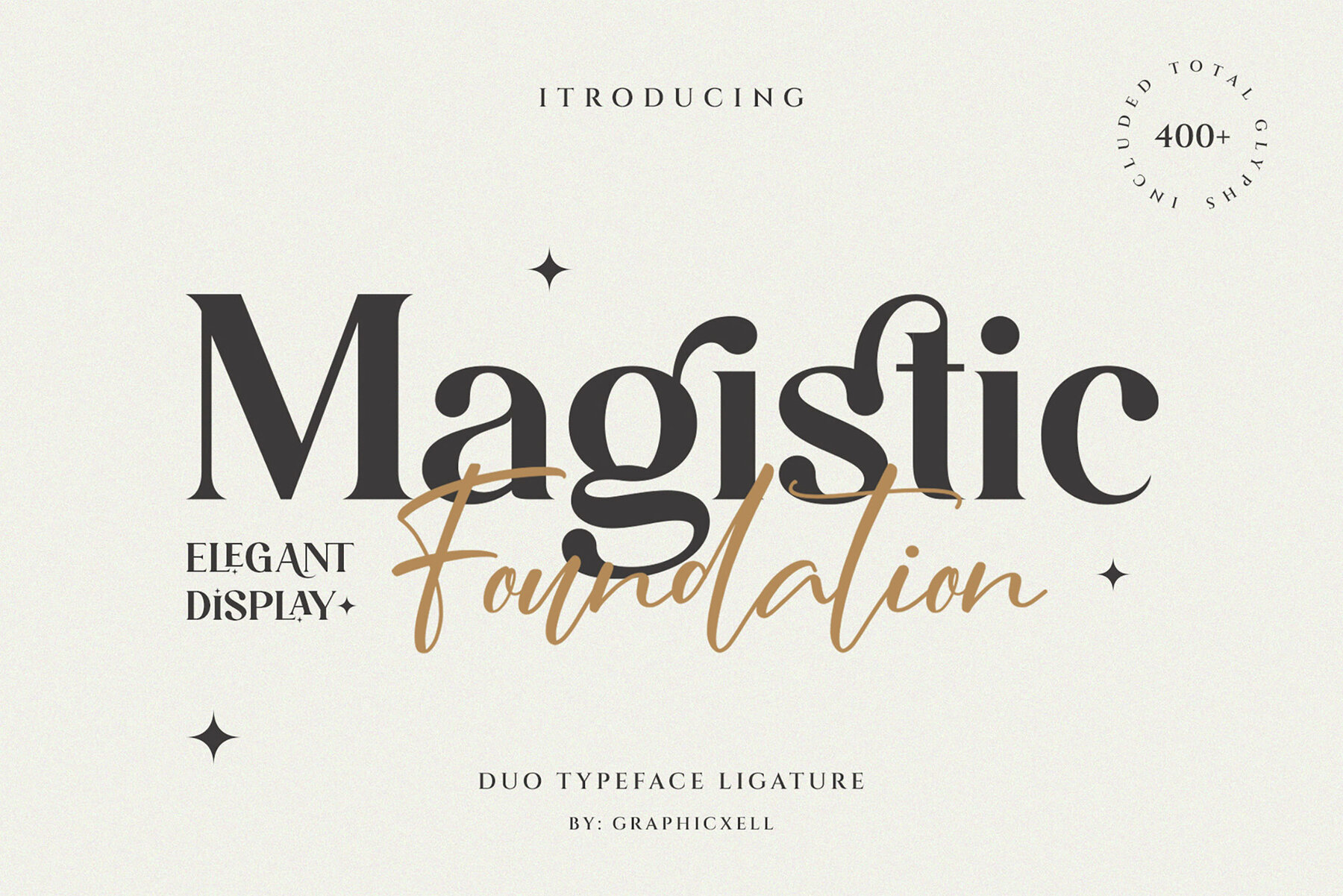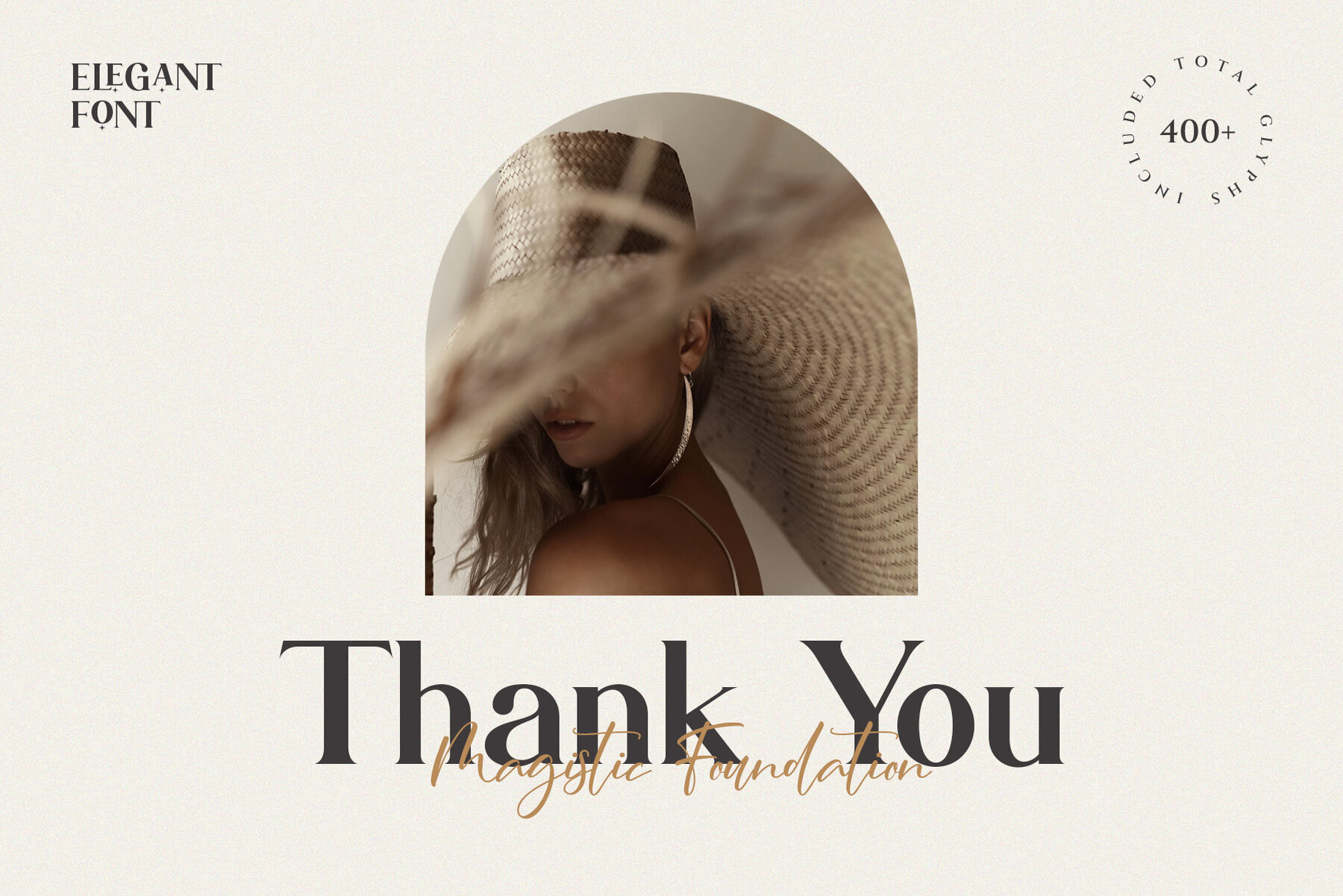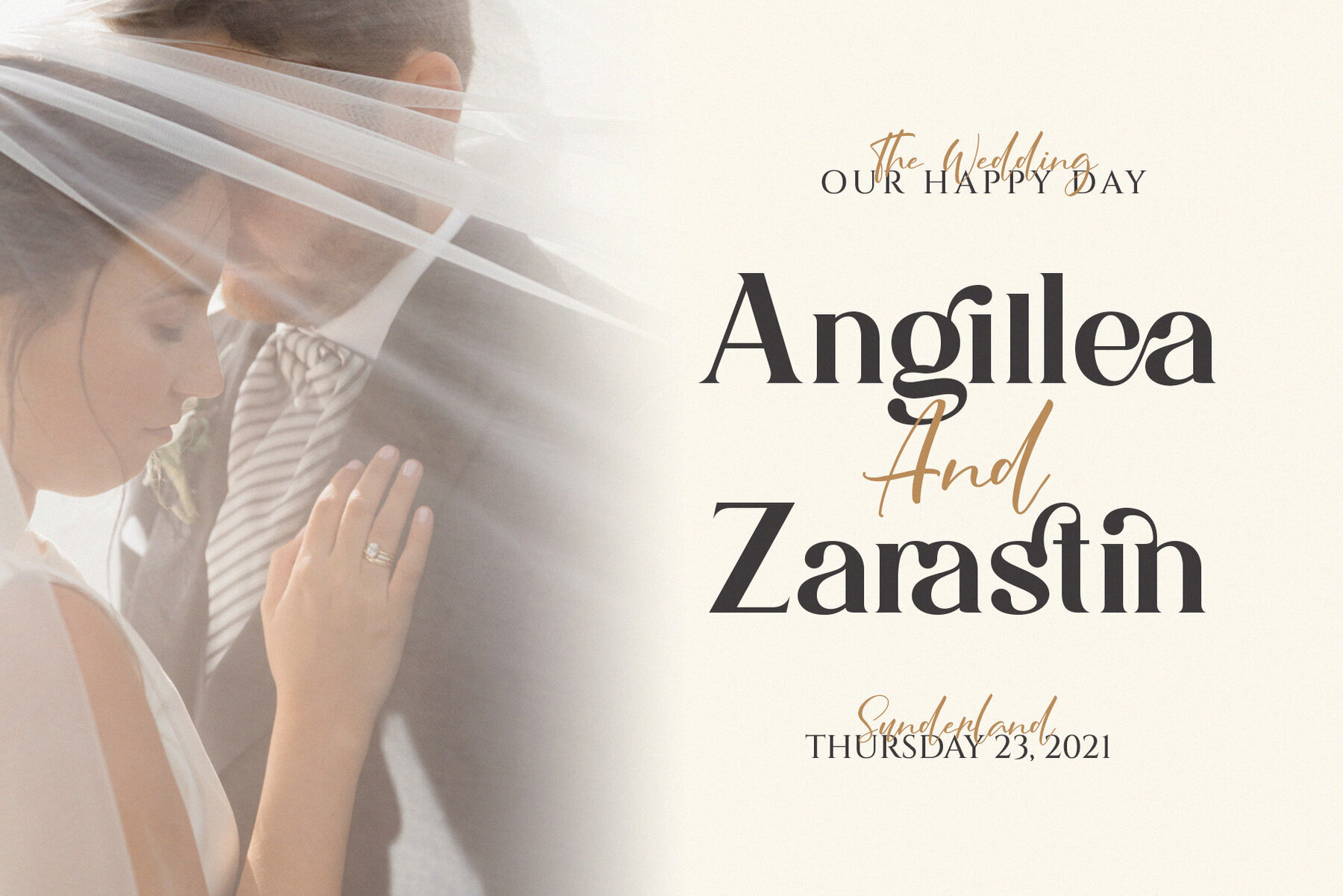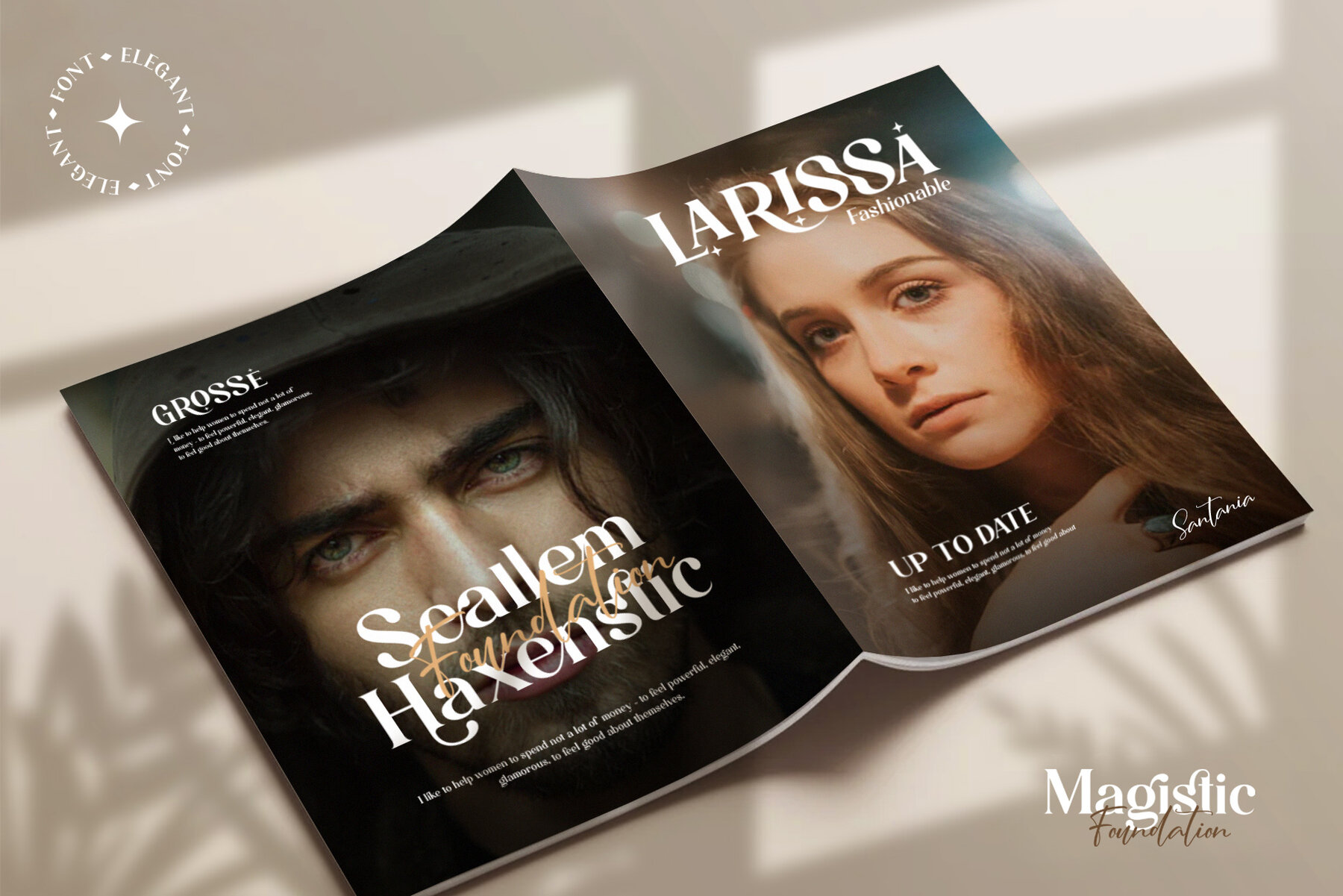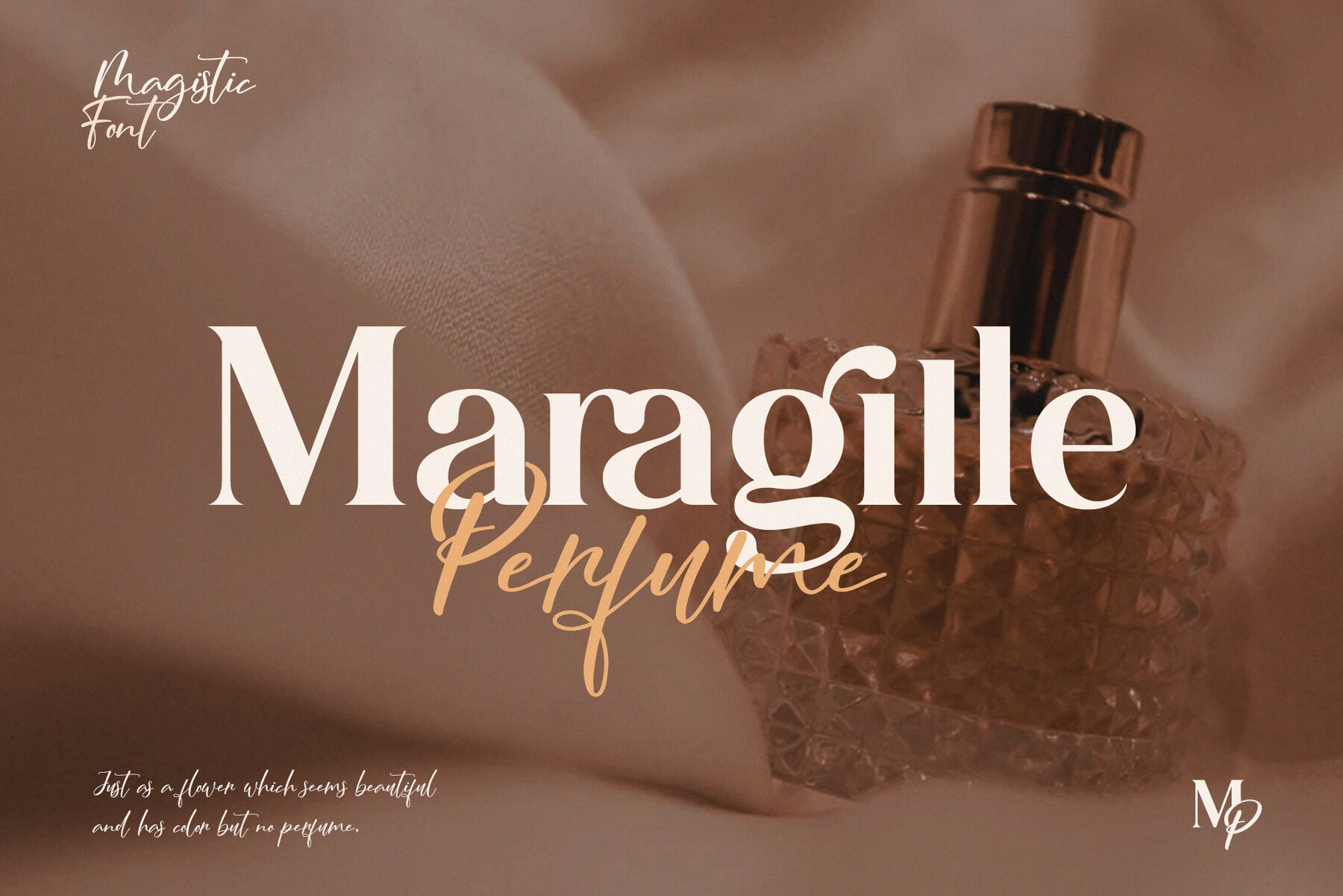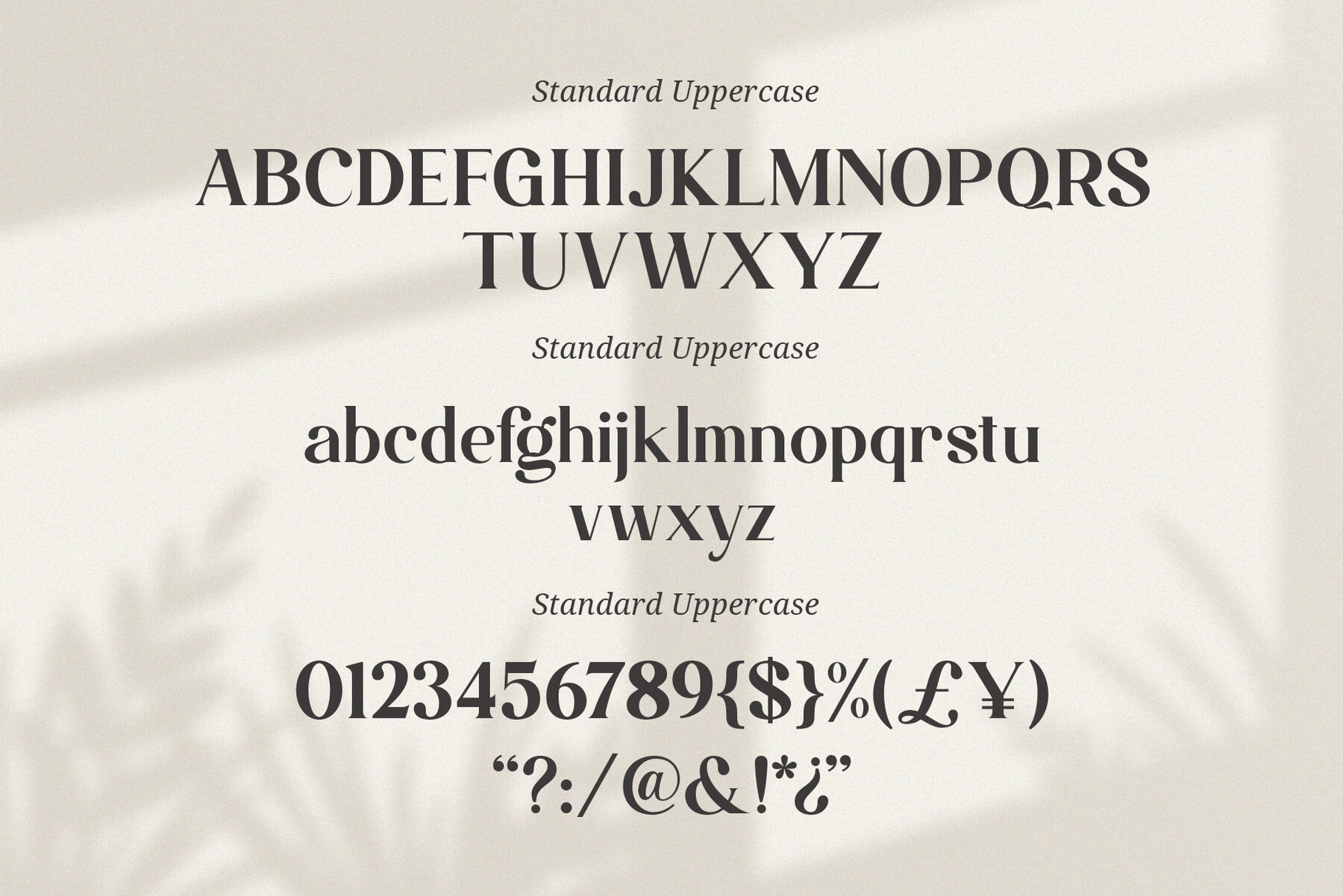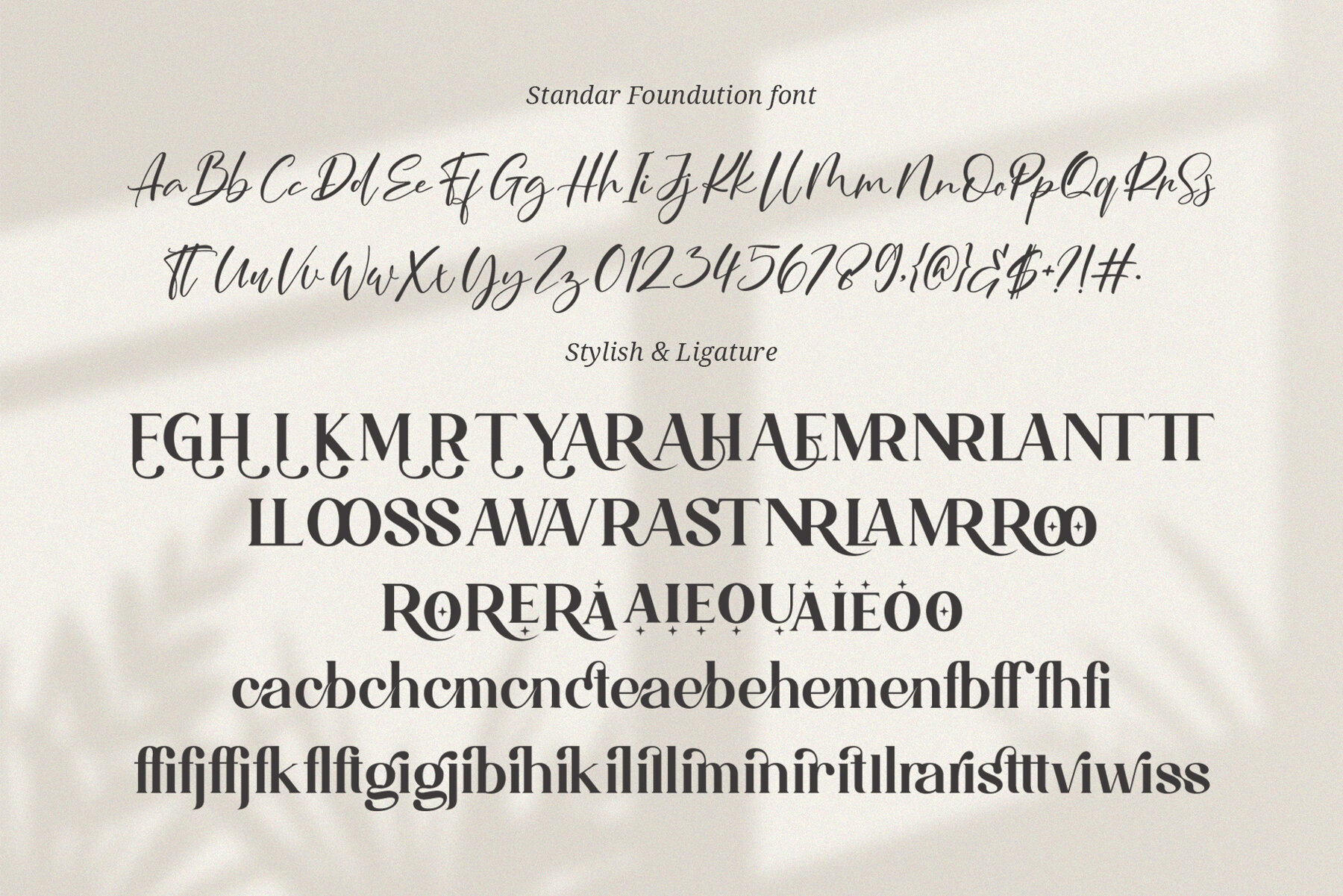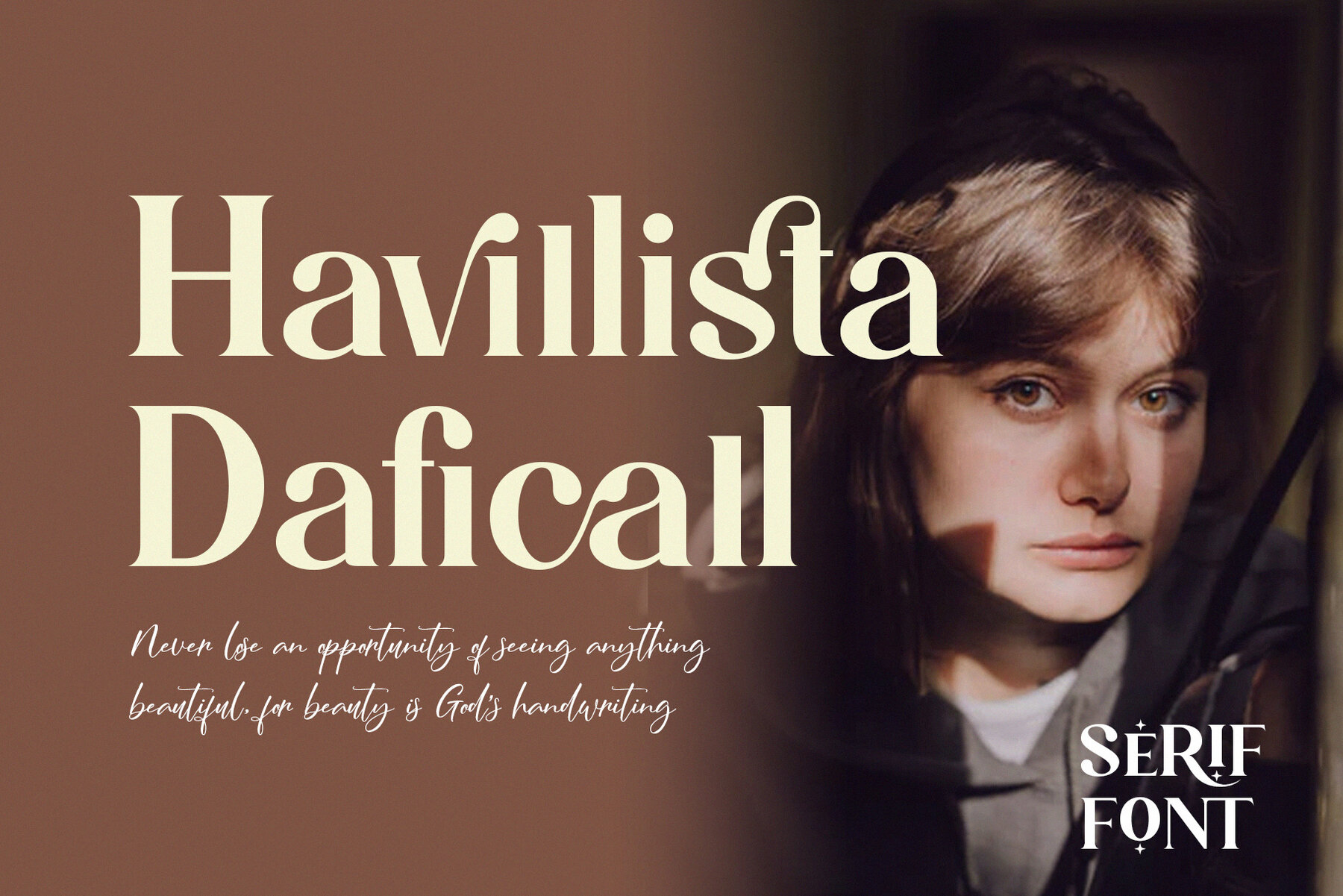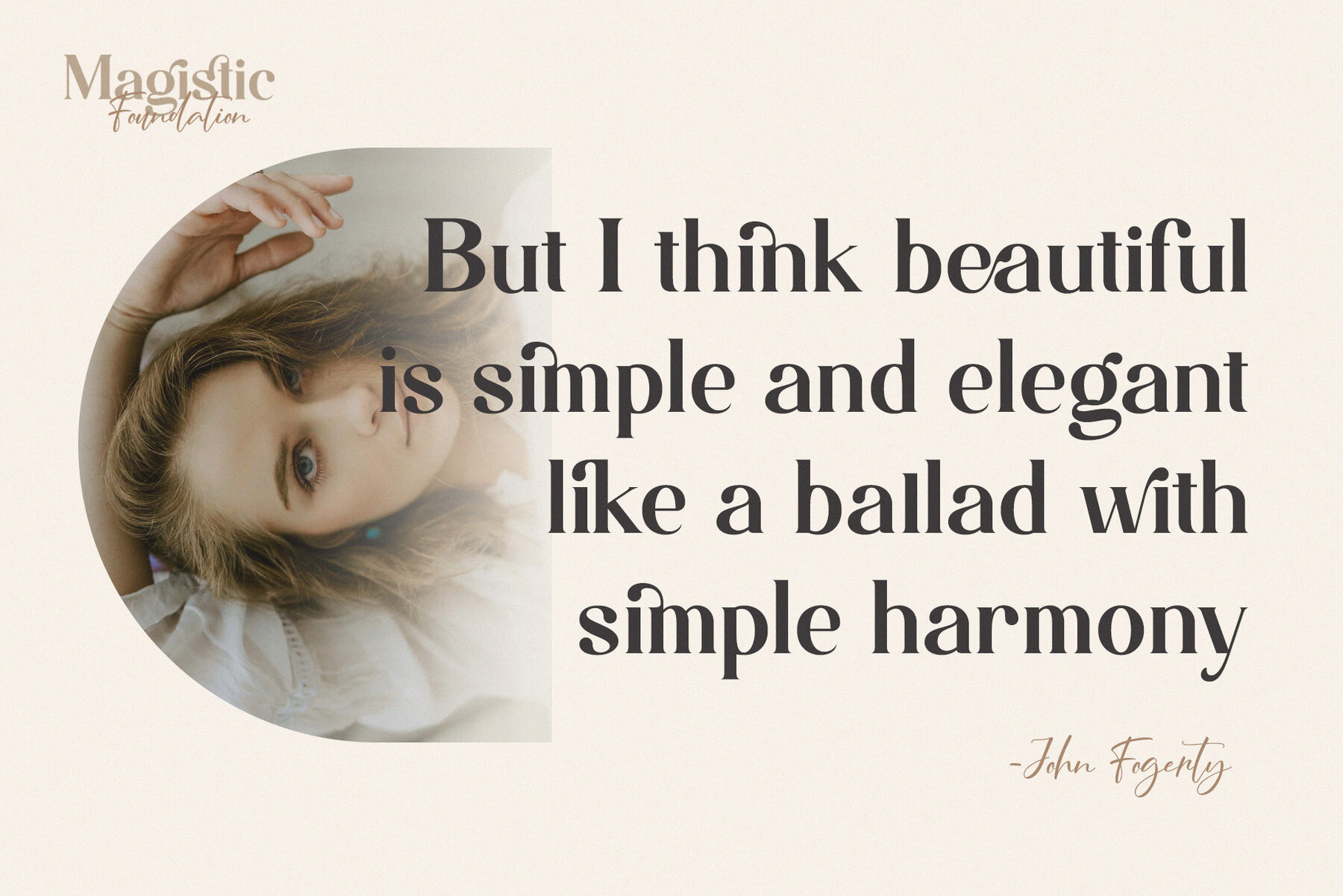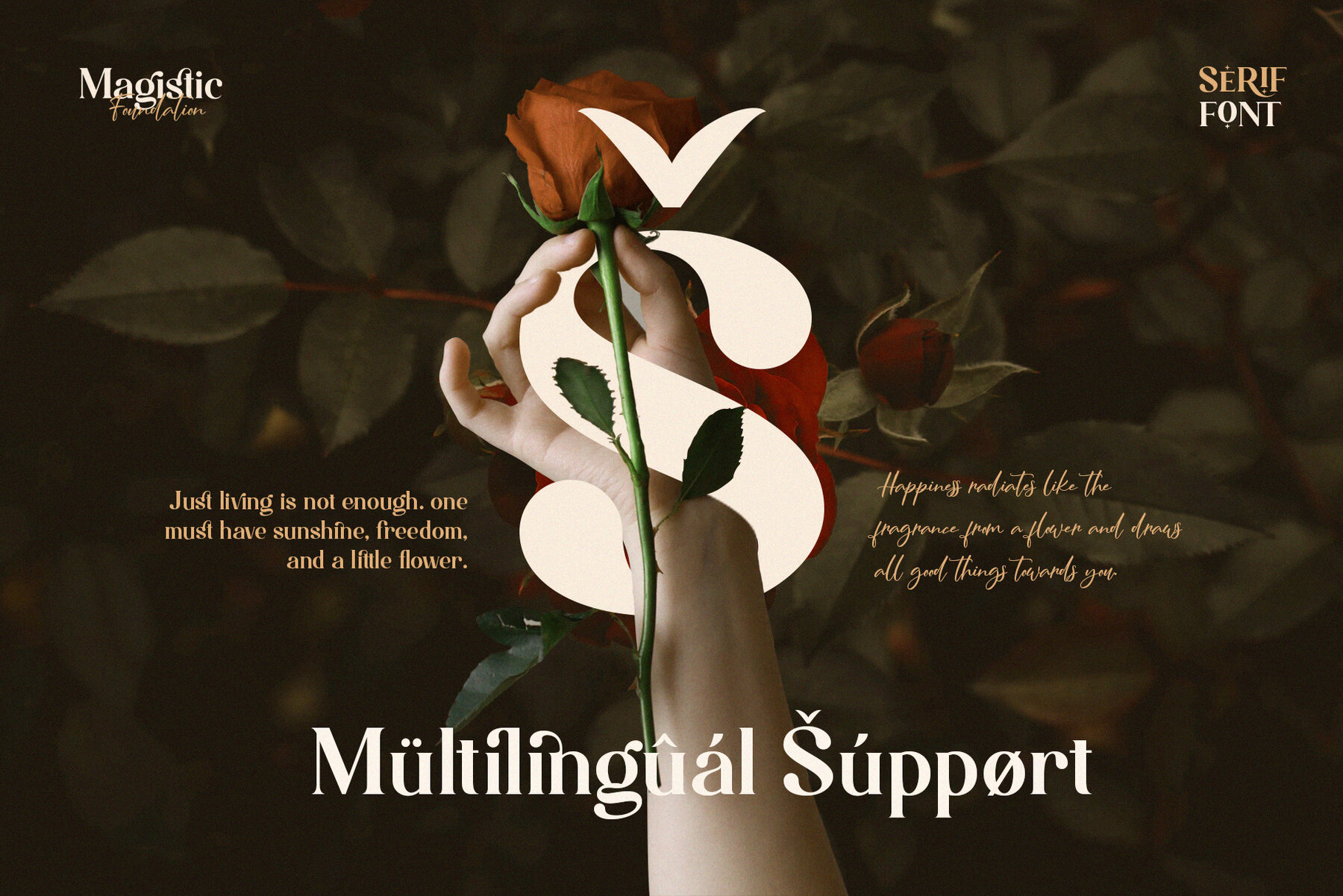
Magistic Duo Font
Magistic is a modern serif font that has soft curves and high contrast glyphs to give it an elegant yet feminine quality. This typeface works well for quotes or body copy, best used in layouts such as logos with headings; however you can also use this fun little discovery when designing your own invitations!